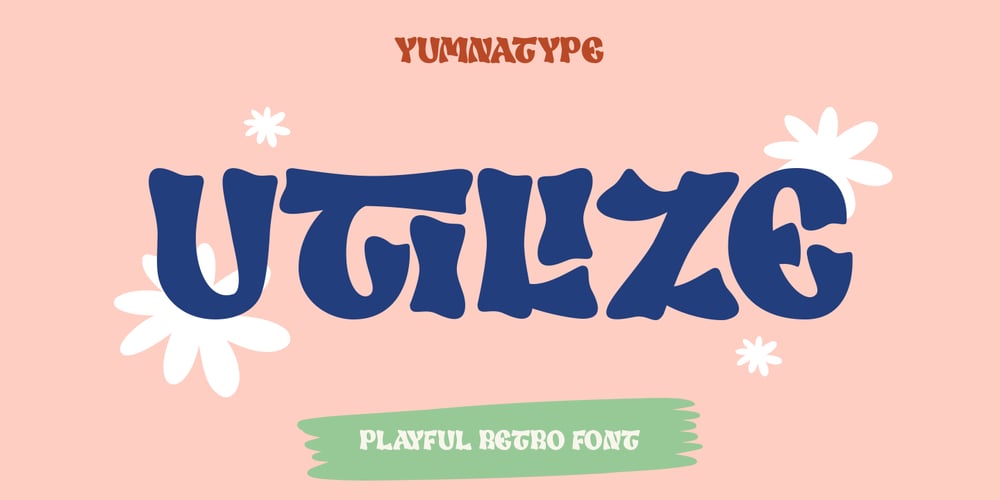
Utilize Font Family was designed by Donis Miftahudin and published by Yumna Type. Utilize contains 2 styles and family package options. Utilize is a bold and dynamic display font that channels the retro aesthetic with its all caps design and bold weight. Crafted with meticulous attention to detail, this font exudes a sense of vintage charm and nostalgia. Each letter in Utilize is designed with bold strokes and sharp angles, capturing the boldness and energy of retro typography.The all caps design adds to the font’s commanding presence, making it stand out and capture attention with its bold and assertive appearance. What sets Utilize apart is its shadow version, which adds depth and dimension to the font. In addition, enjoy the features here.Features: Ligatures Stylistic Sets Multilingual Supports PUA Encoded Numerals and Punctuations Utilize fits in headlines, logos, posters, flyers, branding materials, print media, editorial layouts, and many more designs. Find out more ways to use this font by taking a look at the font preview.Thanks for purchasing our fonts. Hopefully, you have a great time using our font. Feel free to contact us anytime for further information or when you have trouble with the font. Thanks a lot and happy designing.